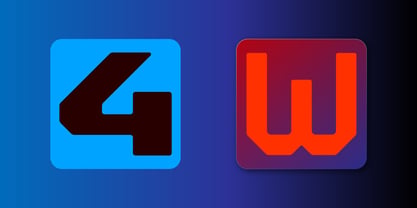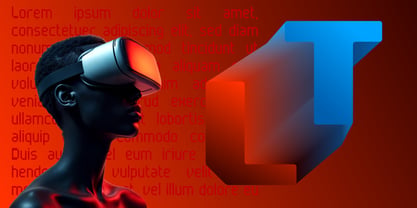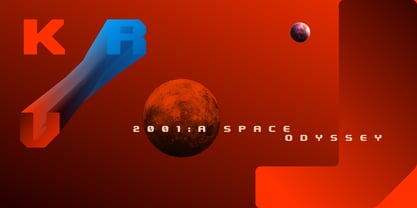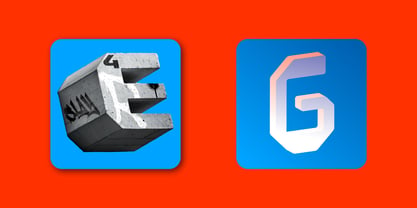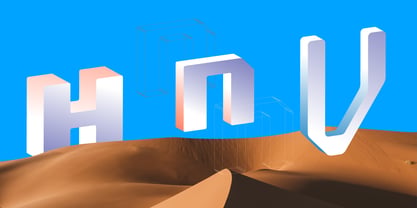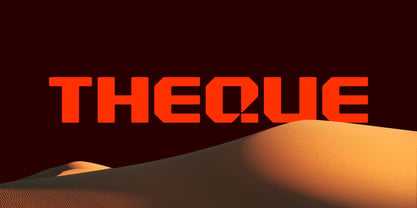
Theque
by Steno Type Foundry
The Theque Font Family was designed by İbrahim Atabey and published by Steno Type Foundry. Theque contains 3 styles and family package options. More about this family
THEQUE is a dynamic and highly adaptable typeface crafted for bold visual statements. Perfectly suited for use in headlines, posters, and logo design, it commands attention across full-page layouts and editorial titles alike.
With its smooth, rounded corners, THEQUE strikes a refined balance between modern sophistication and friendly warmth. This blend of precision and softness makes it a versatile choice, capable of enhancing a broad spectrum of creative applications.
Designers: İbrahim Atabey
Current Foundry: Steno Type Foundry